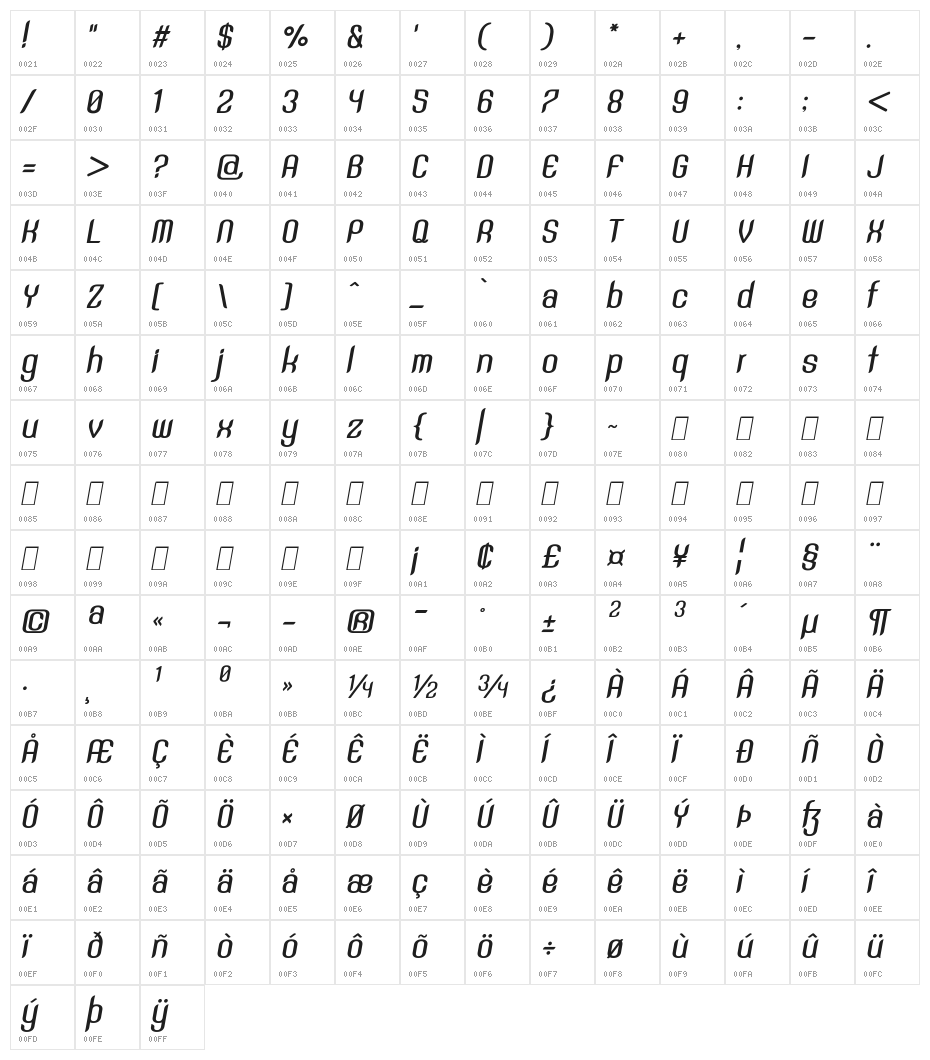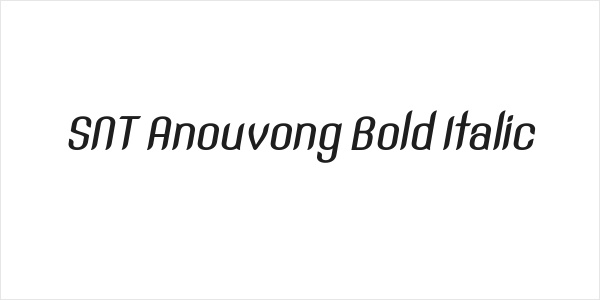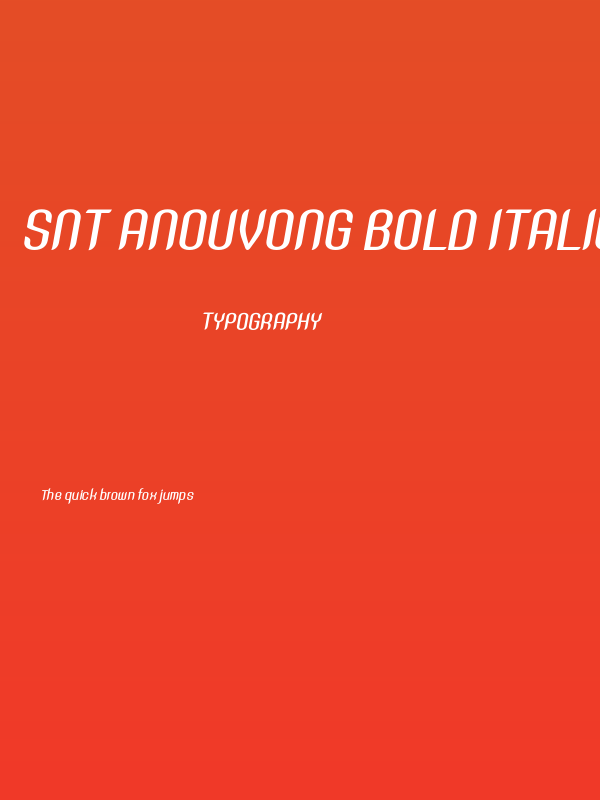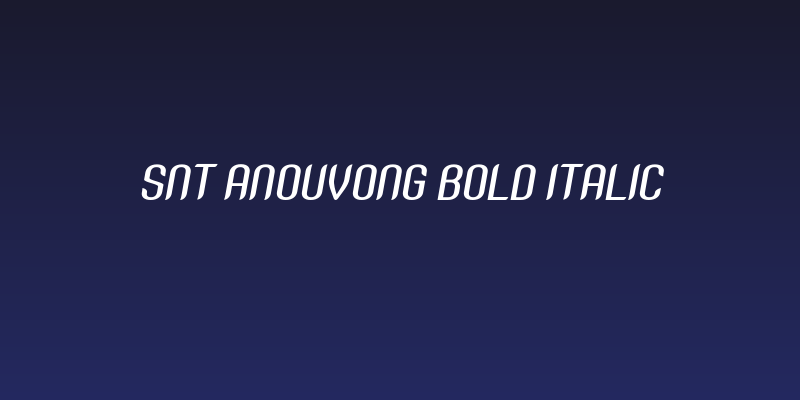
SNT Anouvong Bold Italic Font
SNT Anouvong Bold Italic Description
This font features a bold and italicized style with smooth, flowing curves and a modern aesthetic. The characters are slightly condensed, giving a sleek and streamlined appearance. The uppercase and lowercase letters maintain a consistent slant, enhancing the italic effect. The numerals are clear and distinct, matching the overall style of the alphabet. Special characters are well-integrated, maintaining the font's cohesive look. The stroke contrast is medium, providing a balanced visual weight that is neither too heavy nor too light.
| Proposed Projects | Ideal for branding projects, modern advertising, dynamic headlines, and stylish logo designs. |